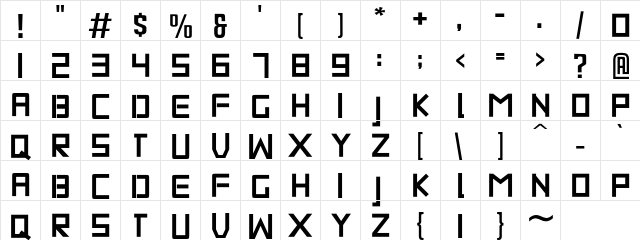
Big Regular
Design Context for Big Typeface
Big takes a measured approach to typography — its balanced proportions and neutral character make it a reliable workhorse for both digital and print work.
Pro Tip: Use Big in both headline and body roles to test its range before committing to a single application.